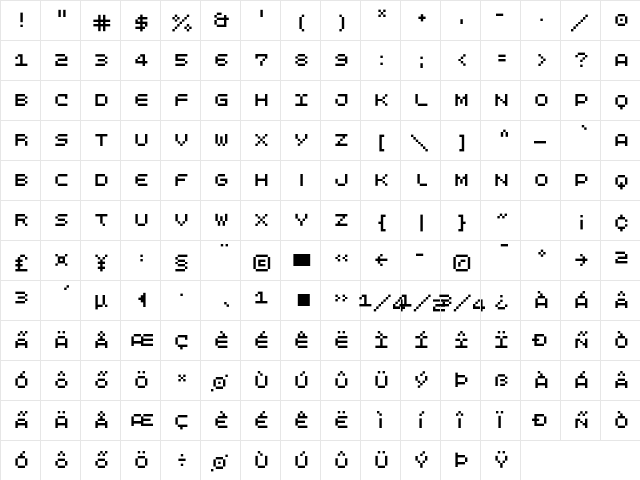
LomoWebPixel LT Std 5 Regular
Design Context for LomoWebPixel LT Std 5 Typeface
LomoWebPixel LT Std 5 celebrates the constraints of early digital type, turning pixel geometry into a distinctive and immediately recognisable style.
Well-suited to indie game interfaces, retro computing aesthetics, and pixel art-adjacent design work.
Pro Tip: Use LomoWebPixel LT Std 5 at sizes that align with its pixel grid for the sharpest rendering — scaling to non-integer multiples can introduce unwanted blur.